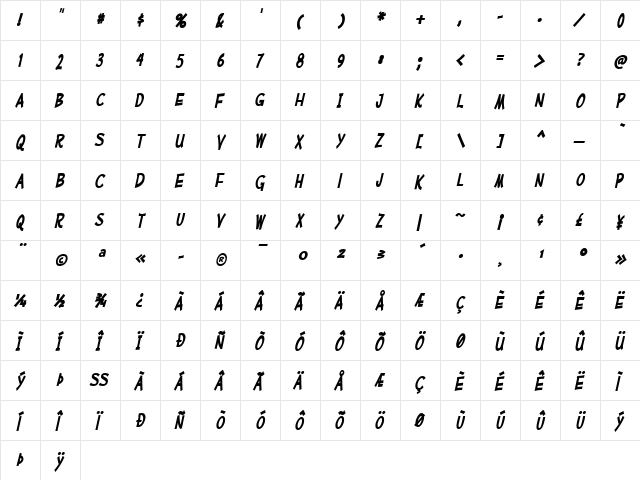
Mufferaw Cnd Bold Italic Font Preview
Design Context for Mufferaw Cnd Typeface
Mufferaw Cnd takes a measured approach to typography — its balanced proportions and neutral character make it a reliable workhorse for both digital and print work. The dynamic lean of this cut emphasises speed and emphasis in any layout. The heavy weight commands attention and anchors typographic hierarchies.
Pro Tip: Use Mufferaw Cnd for emphasis, pull quotes, and subheadings where its slanted energy can add rhythm to the layout.